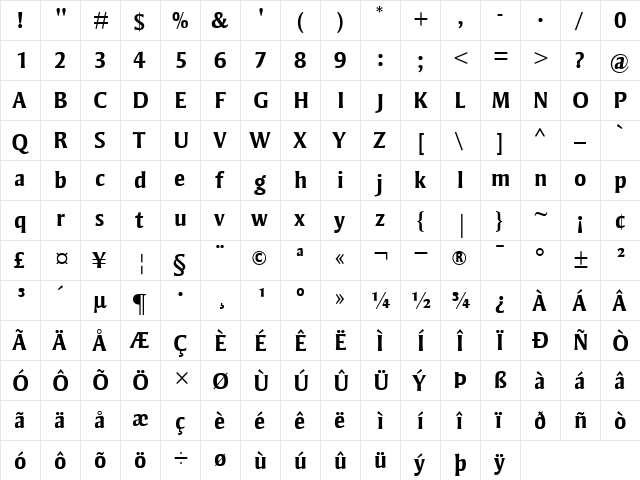
StrayhornMT Bold Font Preview
StrayhornMT Bold
Design Context for StrayhornMT Typeface
StrayhornMT offers clean, dependable letterforms without strong stylistic allegiance, making it a practical choice for designers who need flexibility. Its bold stroke weight gives it real presence on the page.